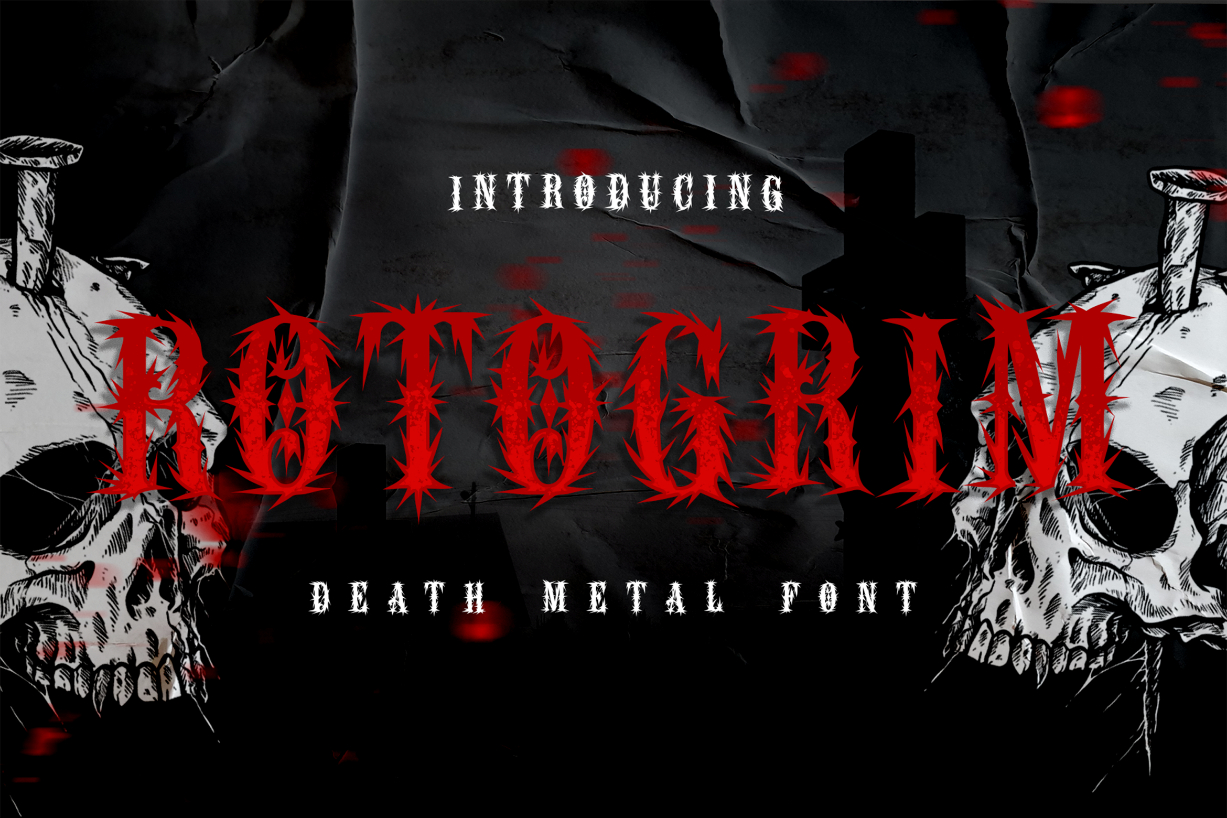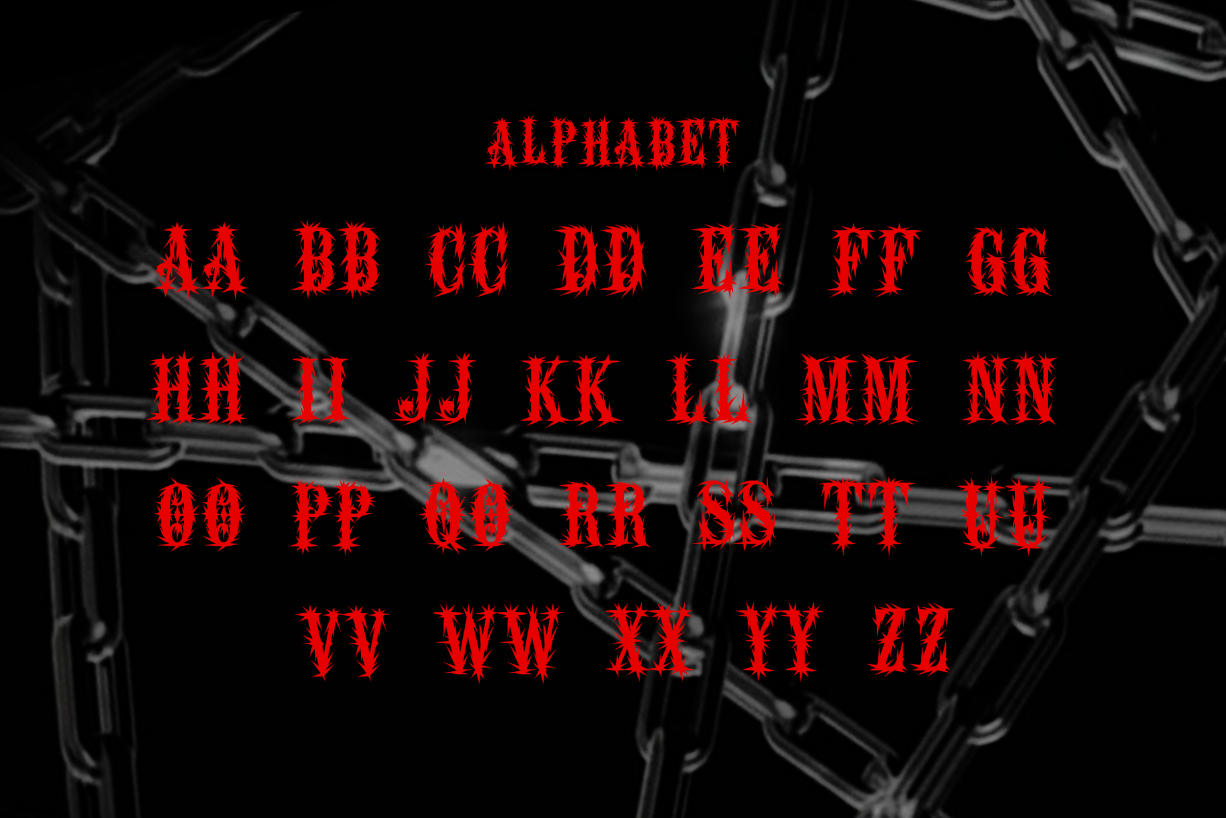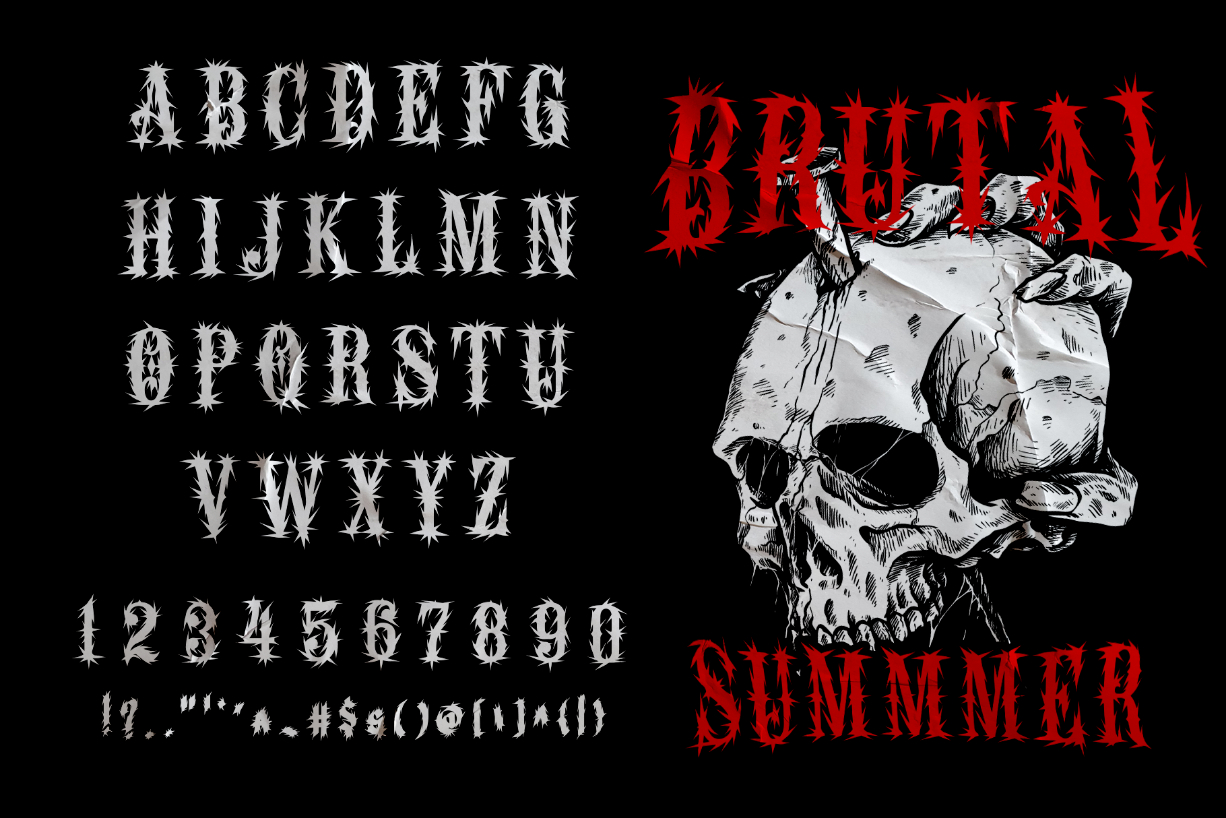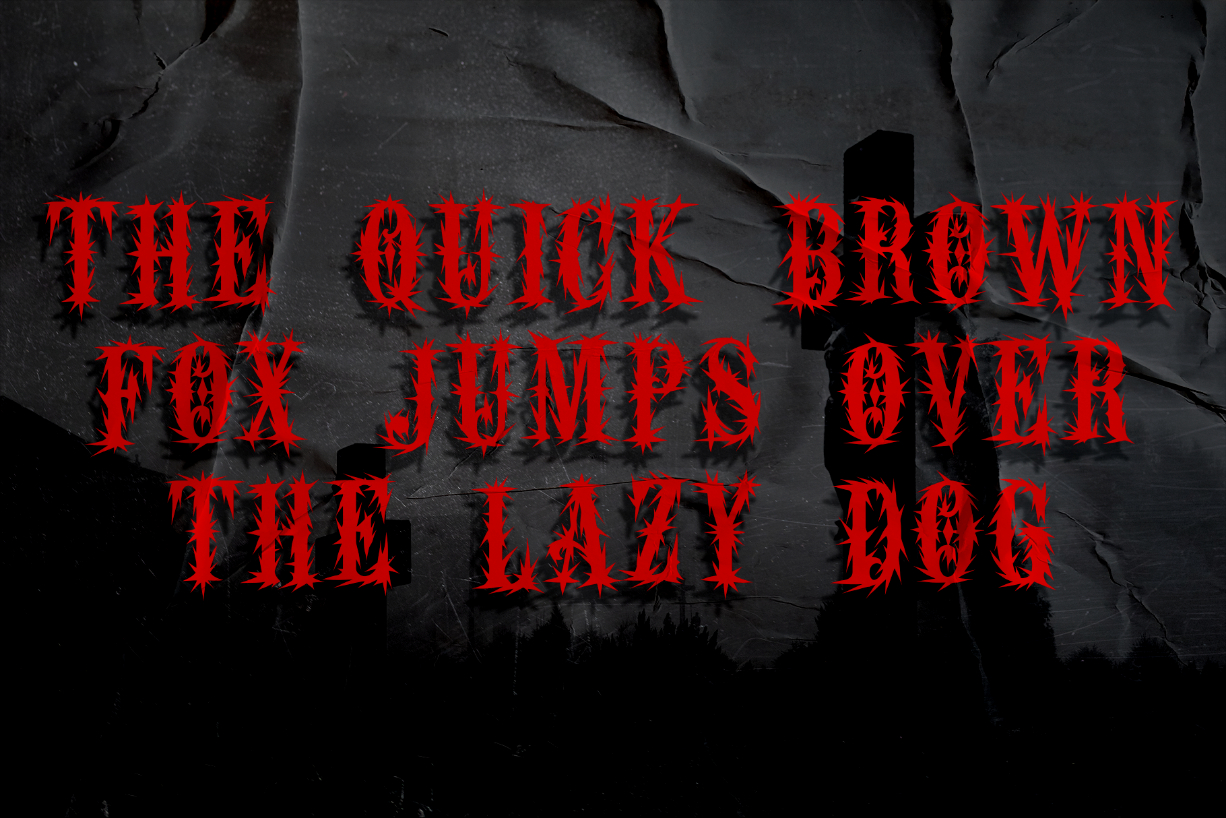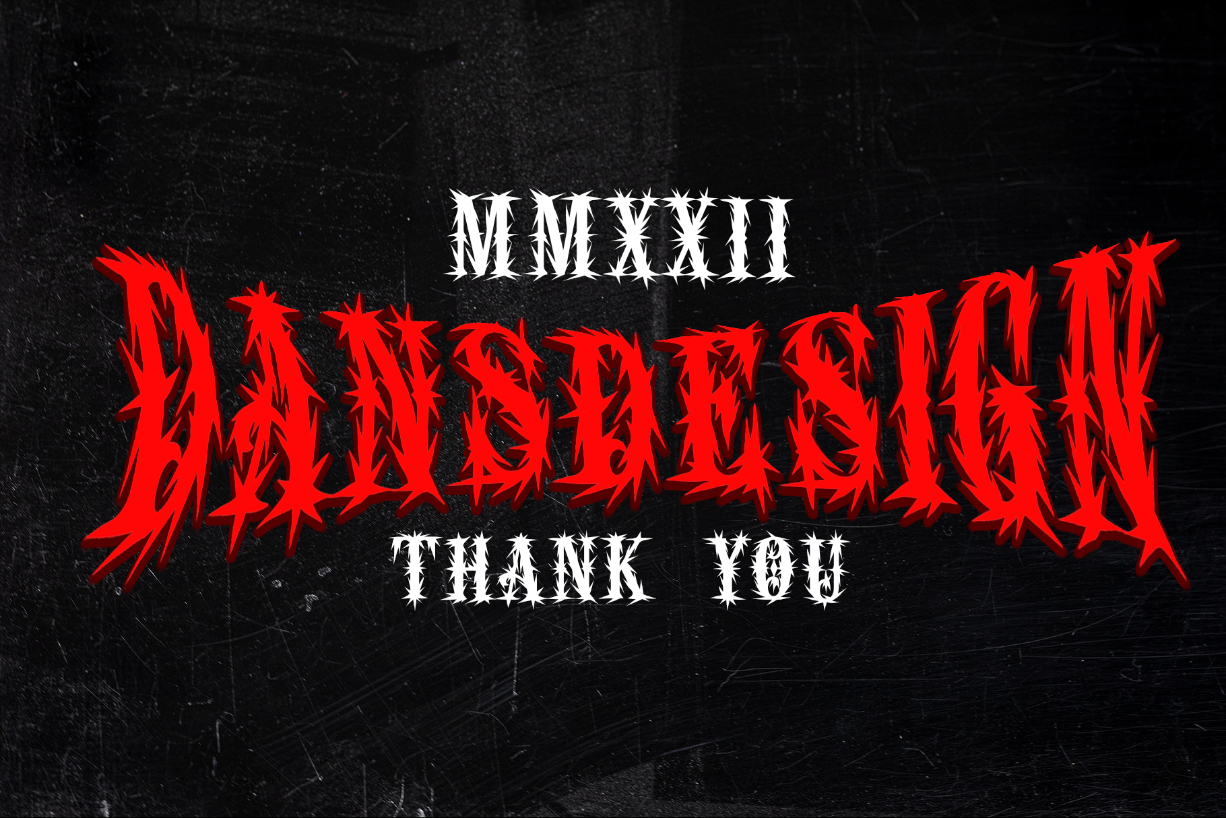
Rotogrim Font
About Rotogrim Font
Rotogrim is the kind of blackletter font that will make your work look unrecognizable. The font was specially created for projects that need a determined and confident touch.